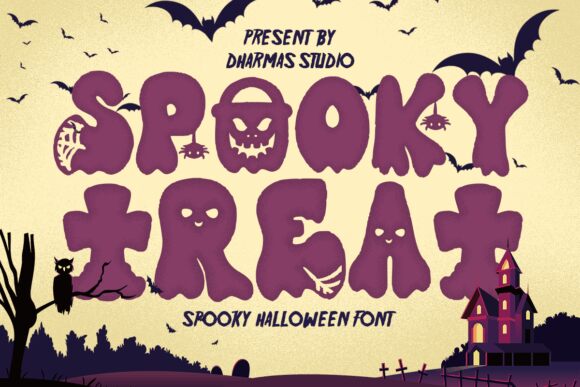
Spooky Treat font is a whimsical and eerie typeface designed by Dharmas Studio. Riddled with organic shapes, it draws influence from classic vintage horror movies while adding a cartoonish vibe suitable for Halloween themes. The bold design helps each glyph stand out which matches its fun and scary elements flawlessly. Get your hands on this free display font for the spookiest time of the year.
The typeface could be put to good use on Halloween themed invitations, posters or postcards. Try Spooky Treat as a book cover, as part of branding/packaging design or on both personal and business websites (titles/headlines mostly). It also works well in social media templates or mobile app designs.